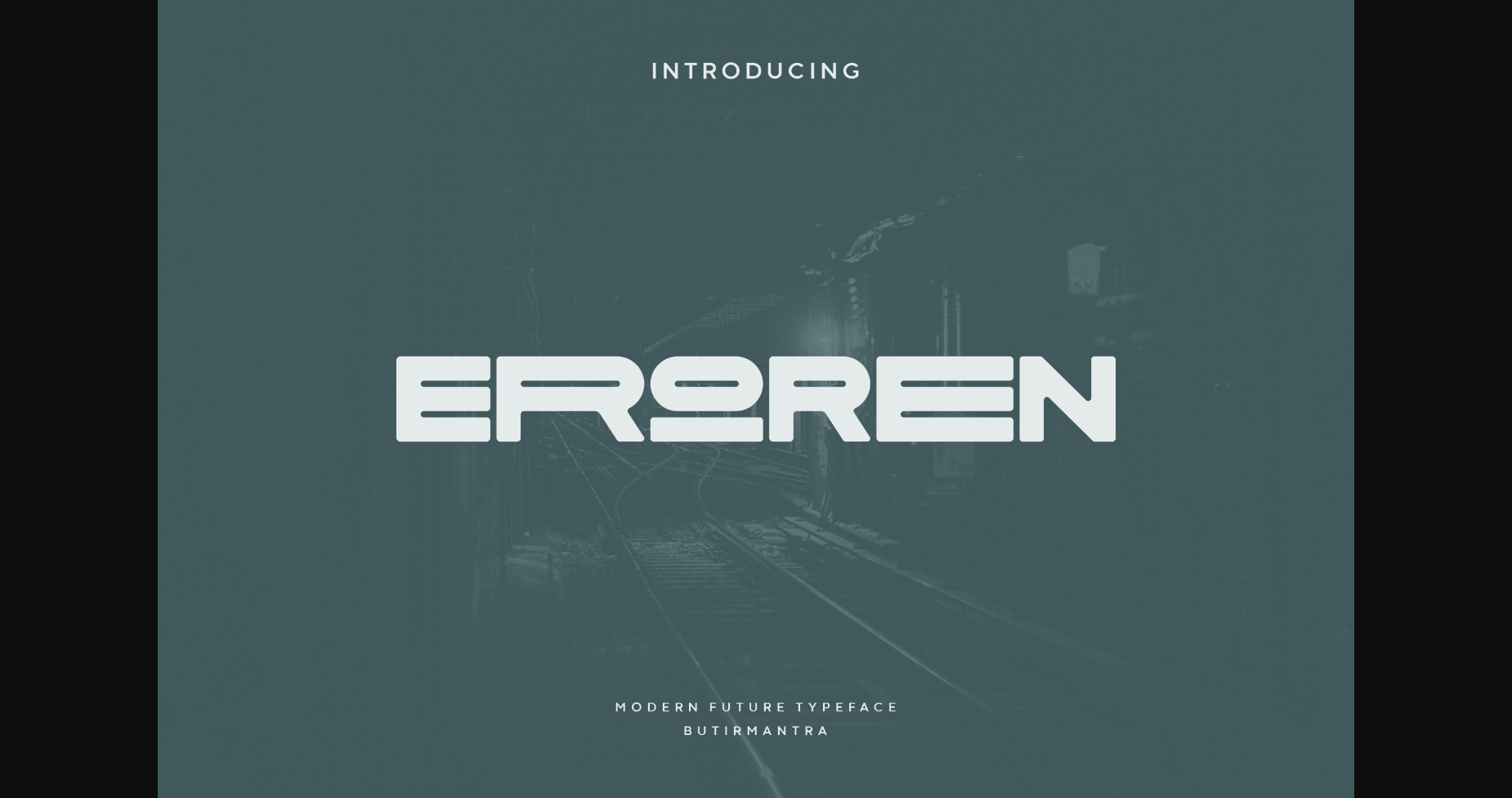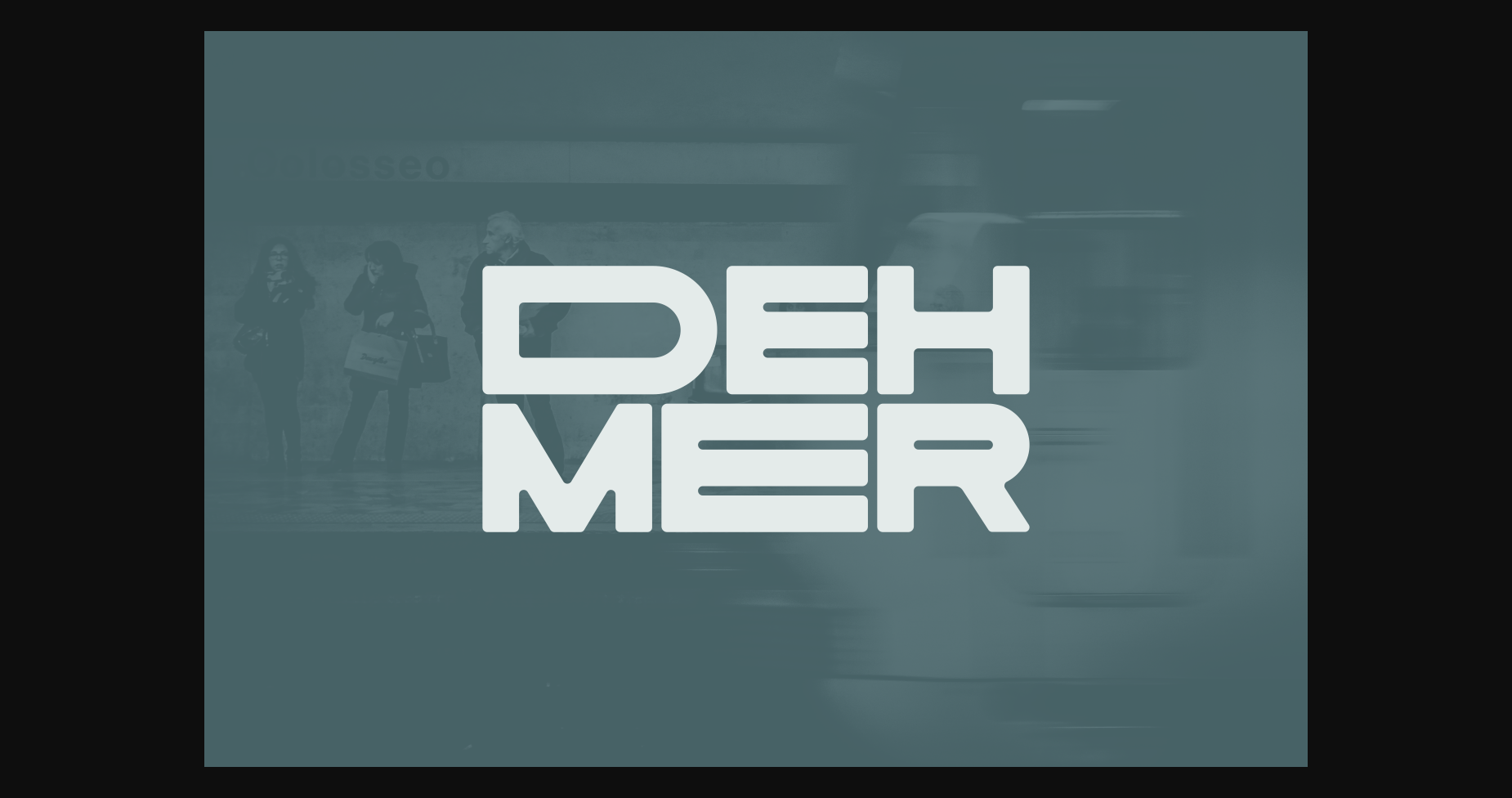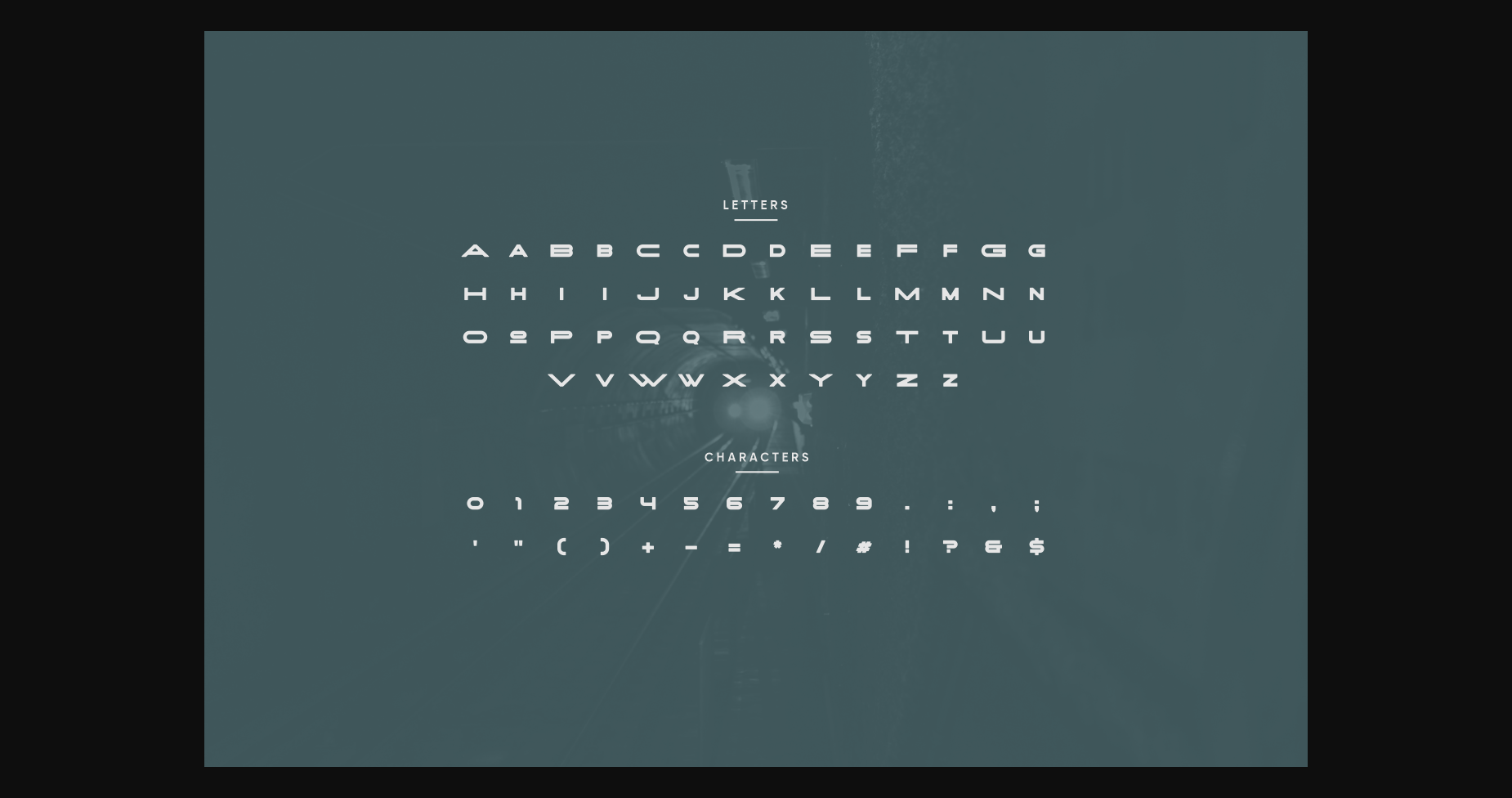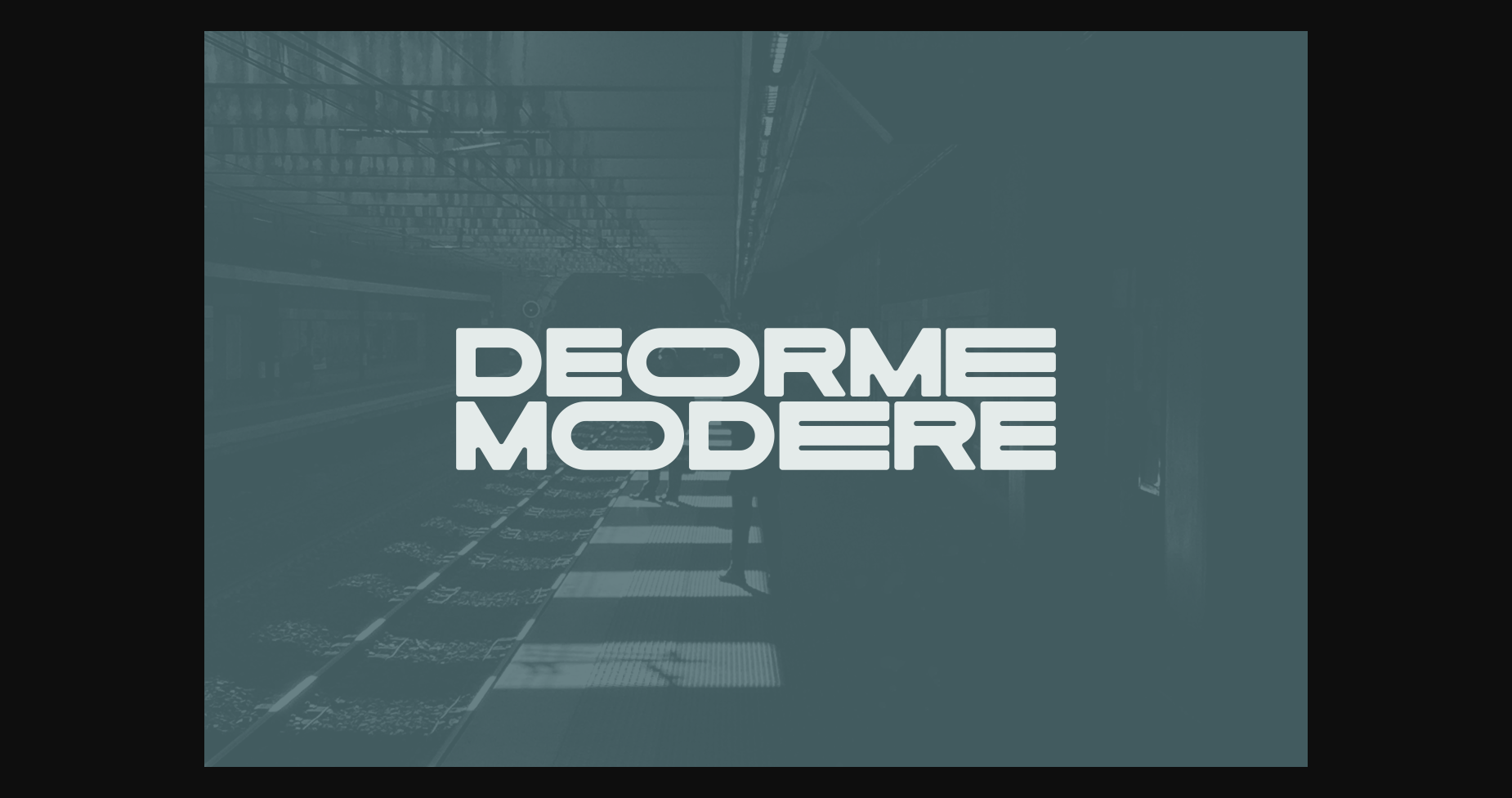
Eroren Font
About Eroren Font
Eroren is display font with a unique style with a little improvisation in the uppercase mode, although this font is all uppercase but has a unique on outline font. This font is very suitable for anything related to the future, illustrations, posters, titles, logos, magazines, or various other designs, you will get a different experience and stand out in your designs.